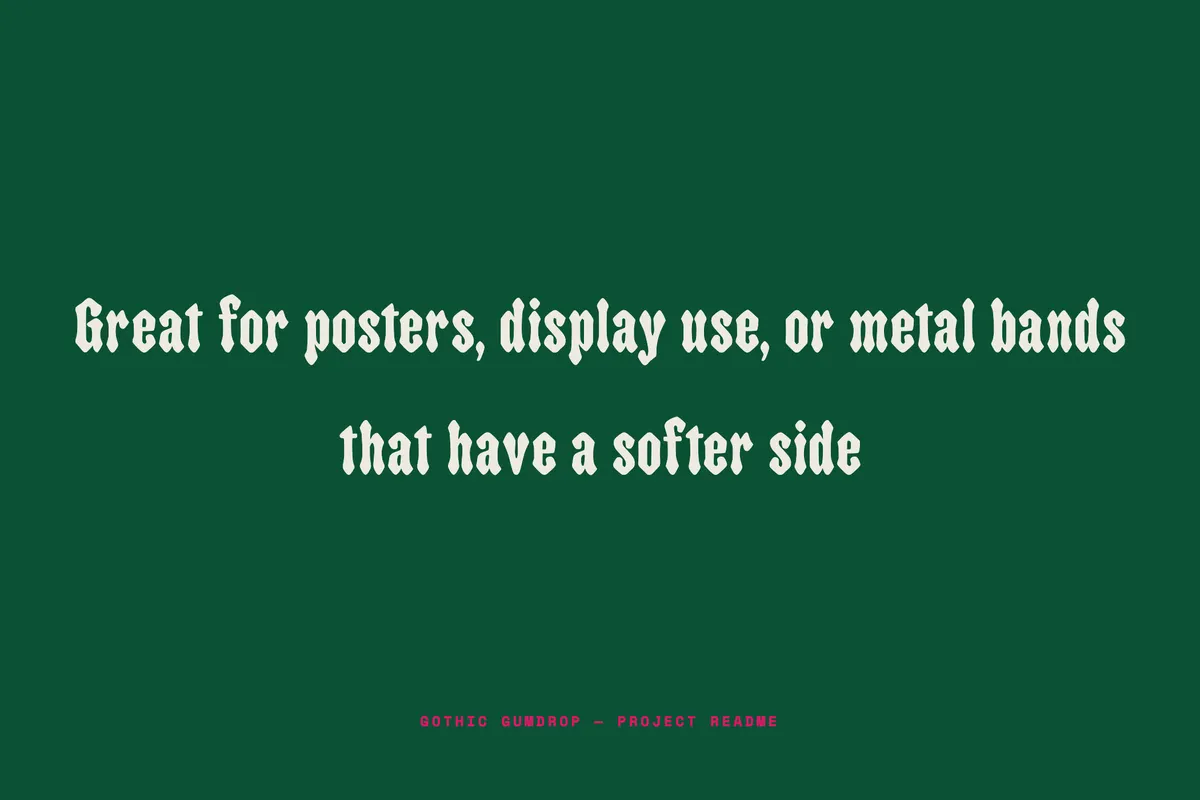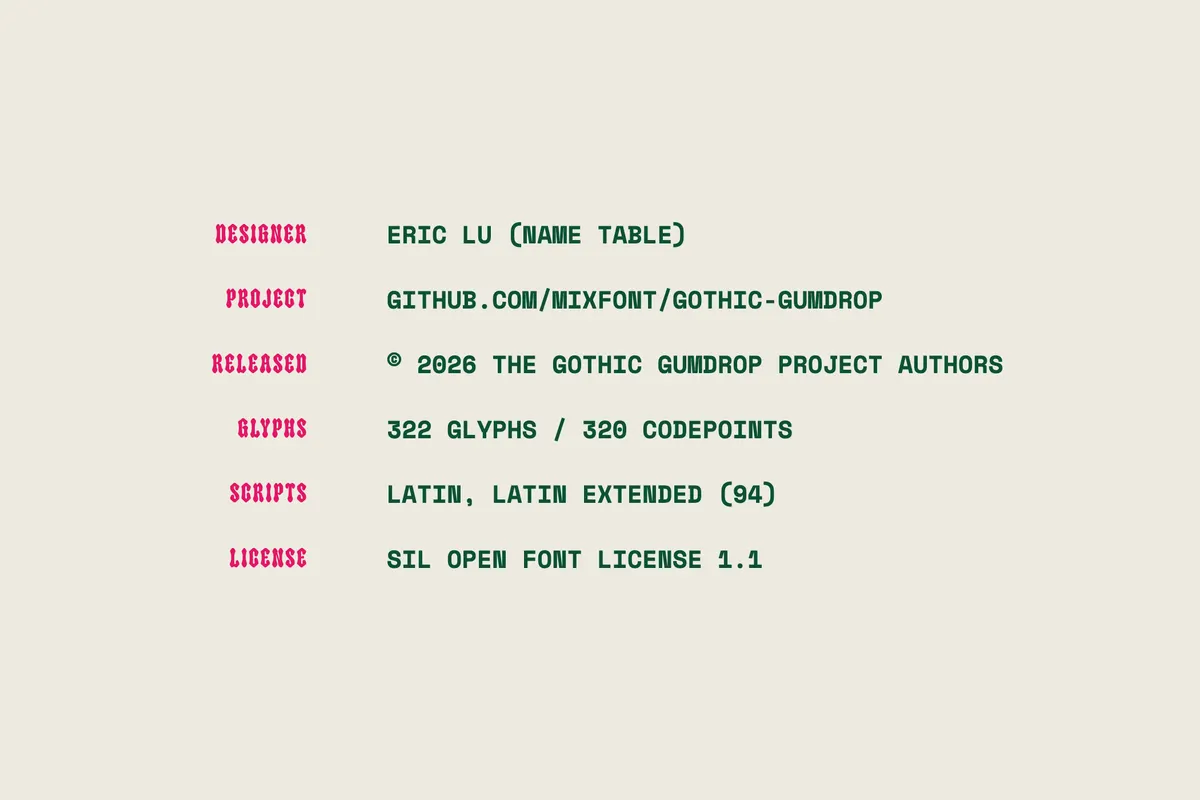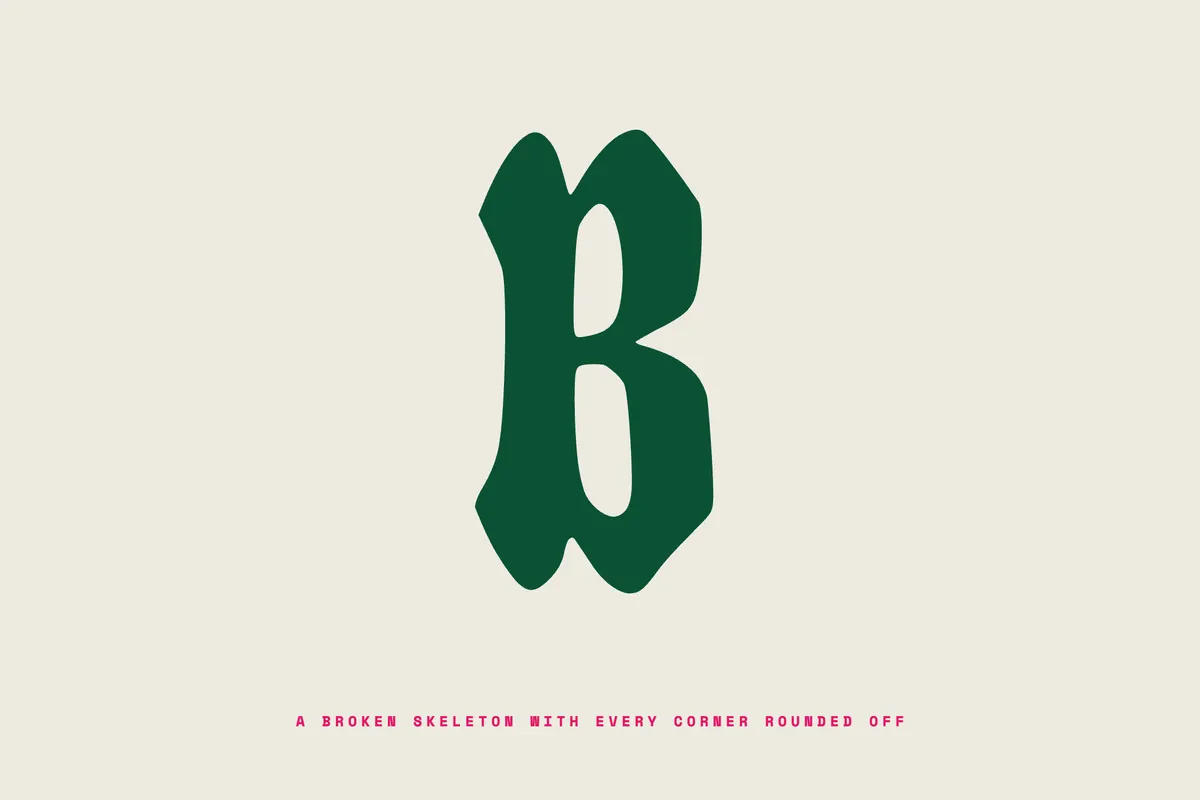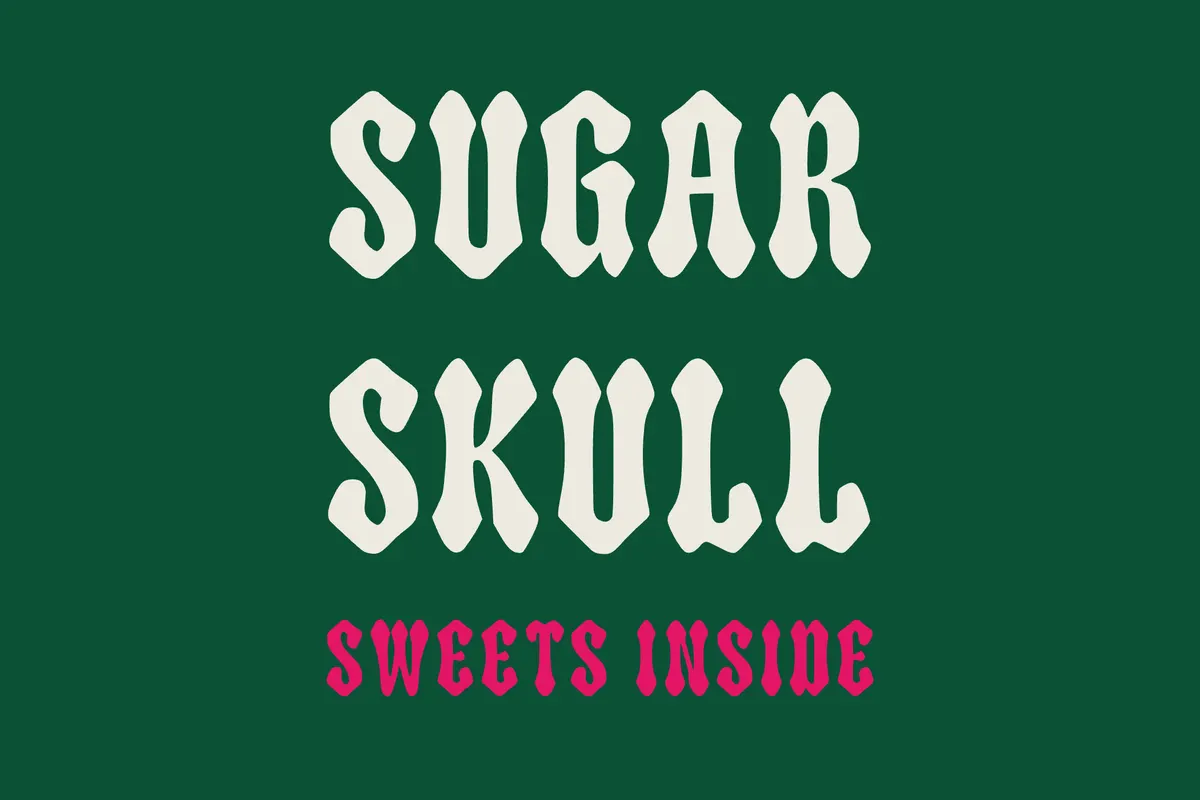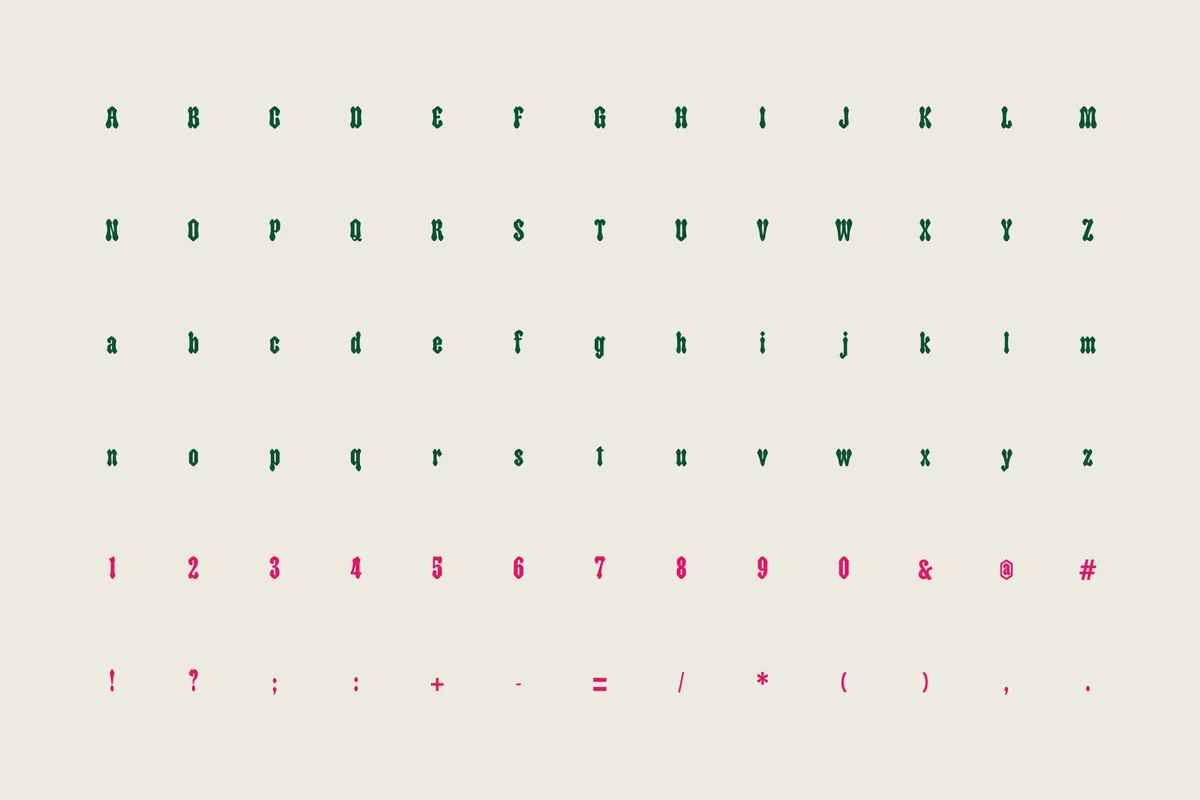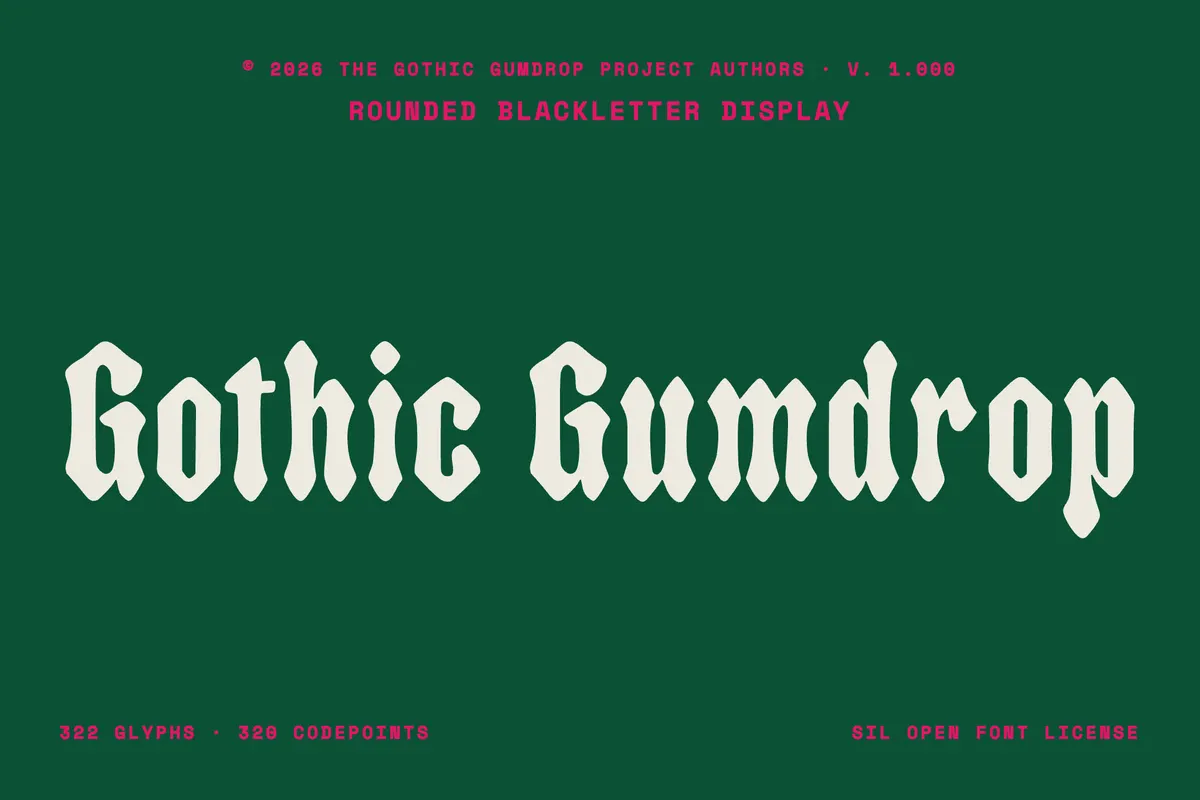
Gothic Gumdrop - Free Rounded Blackletter Font
Gothic Gumdrop rounds off every sharp corner of a gothic display skeleton until the letters swell like candy. It ships in one weight with kerning, and no alternates or stylistic sets to manage. Nice match for candy packaging, children's Halloween graphics, sticker sets, dessert café branding, playful band logos, poster headlines, party invitations, merch prints, and social media graphics.
- uppercase and lowercase letters;
- numbers, punctuation, and symbols;
- kerning pairs;